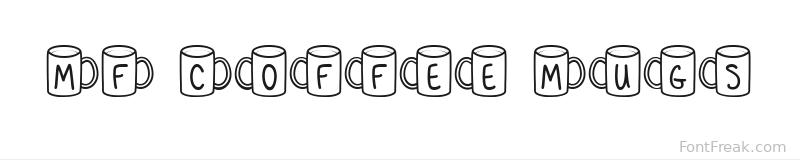
MF Coffee Mugs
MF Coffee Mugs 2
The MF Coffee Mugs font by Misti Hammers is a delightful display typeface that captures the essence of casual charm and warmth. This decorative font features rounded, whimsical letterforms that mimic the playful aesthetic of coffee mugs, making it an inviting choice for various design projects. The stroke weight is consistent, with a smooth, slightly bold appearance that ensures readability while still maintaining a friendly vibe. The spacing between the letters is well-balanced, allowing for easy legibility without sacrificing style.
This font is perfect for a range of creative applications. It can elevate wedding invitations with its light-hearted touch, making them feel more personal and inviting. Additionally, MF Coffee Mugs is an excellent choice for restaurant menus, particularly those focused on coffee shops or bakeries, where a cozy atmosphere is key. It also works wonderfully for children’s book covers or promotional material, as its playful nature appeals to younger audiences. Content creators will find this font ideal for social media graphics or blog headers, where a unique yet approachable style can capture attention.
What sets the MF Coffee Mugs font apart is its ability to evoke warmth and joy while providing a fresh, quirky aesthetic. Its versatility ensures it can be used in various contexts, making it a standout choice for anyone seeking to add a touch of creativity to their work. Don’t miss the chance to enhance your designs with this delightful typeface—MF Coffee Mugs font free download is available now for your convenience.